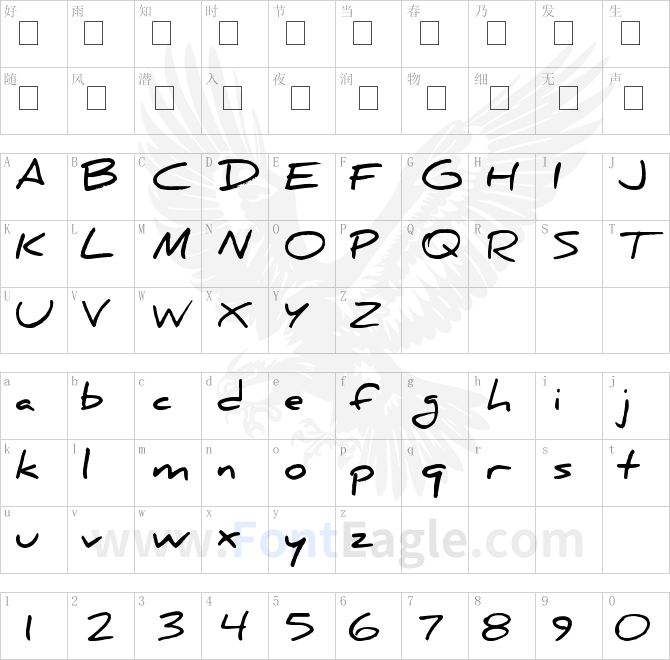
Daniel-Bold is a great font, widely used in graphic design, single-page menu design, poster design and other fields, and is deeply loved by designers.Daniel-Bold download.